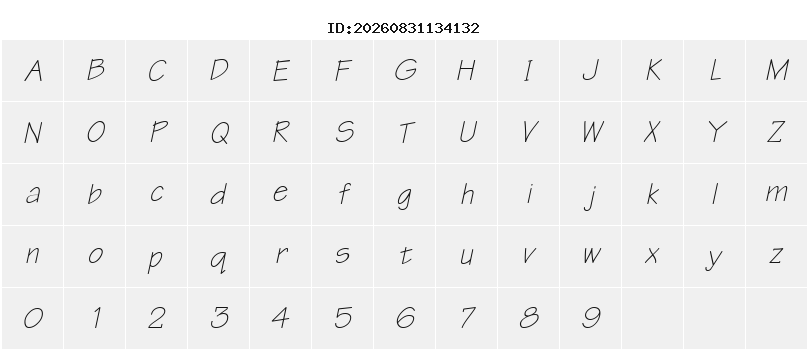
• Font Name: Tek
• Font ID: Macromedia Fontographer 4.1 Tek Bold Italic
• Full Font Name: Tek Bold Italic
• Version: 1.0/1995: 2.0/2001
• PostScript Name: TekBoldItalic
About Tek.ttf
Tek.ttf is a modern, elegant sans-serif font designed for ultimate readability and visual harmony. Perfect for branding, headlines, web design, and print materials.